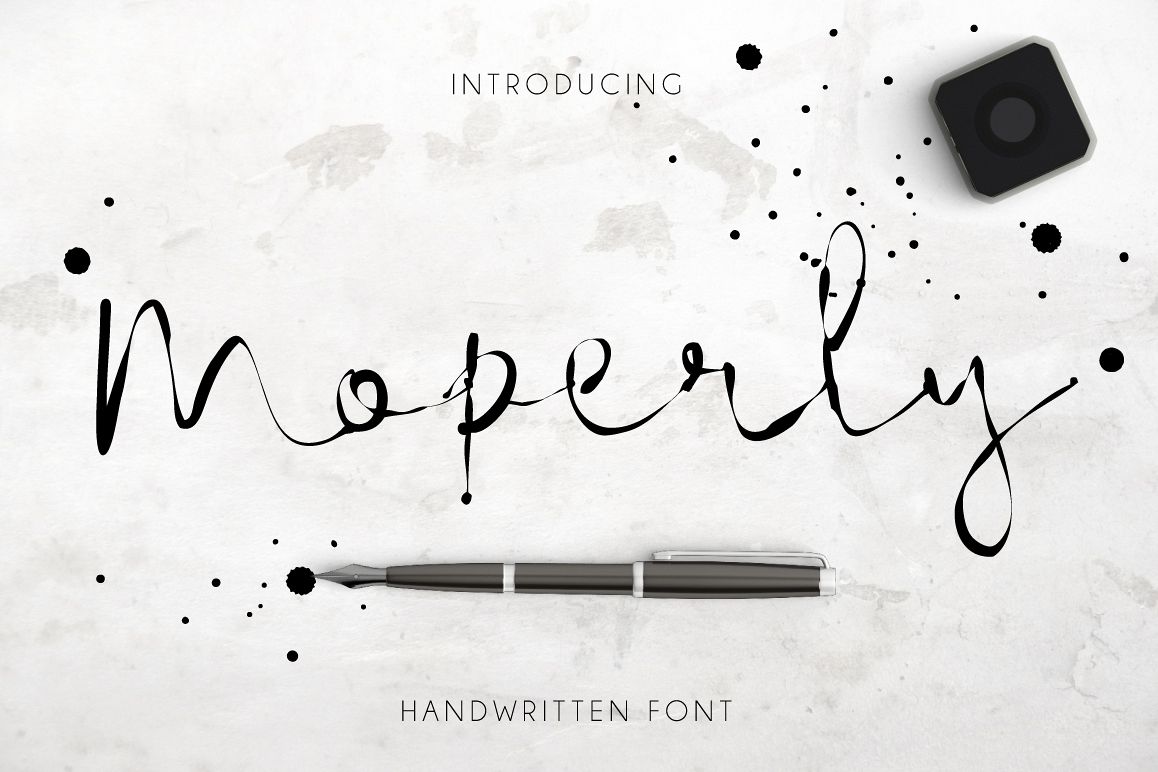
Moperly Script
It's very elegant handwritten ink pen script. This font is ideal for branding and decorate your any project.
This font are perfect for wedding invitation or your blog. Also with their help, you can create a logo or beautiful frame for your home. Or just use for your small business, book covers, stationery, marketing, magazines and more.